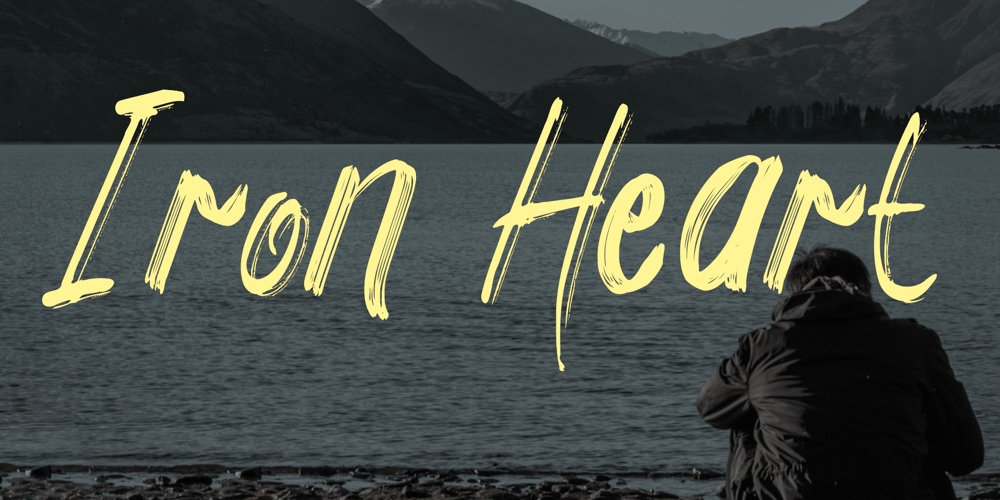
Iron Heart
Iron Heart font
Iron Heart Font Family was designed by Syukur Setiyadi and published by SSI.Scraps. Iron Heart contains 1 styles and family package options. Iron Heart is a unique hand brush font that suits very well for your modern grunge vintage design. its texture was very interesting. use it for your special design and brilliant project such as Apparel, Web project, youtube content, logo, and many more.